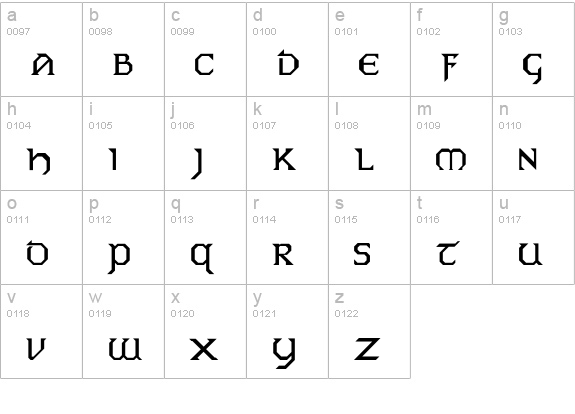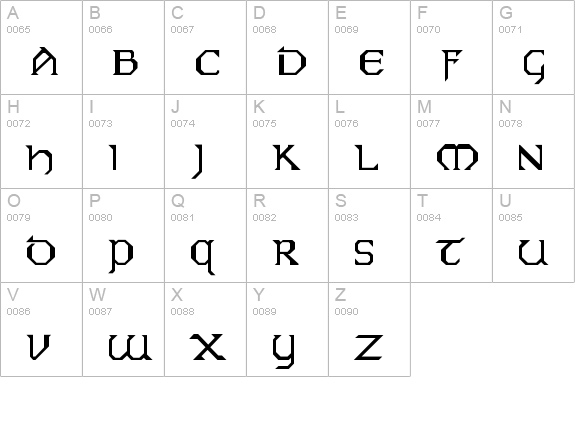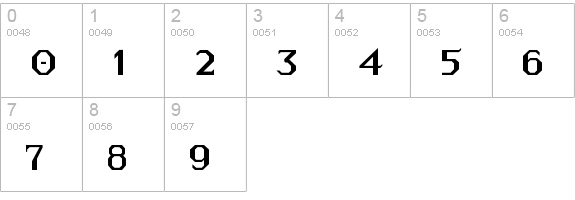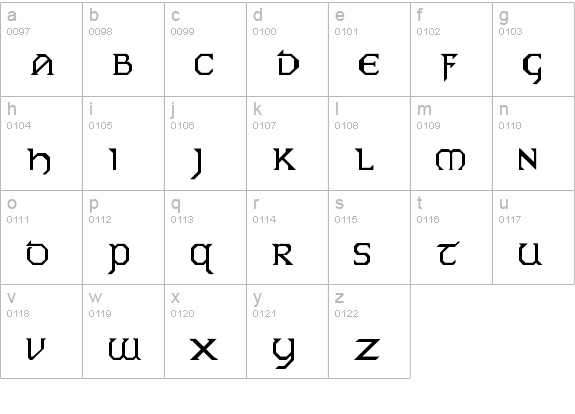
Eire Font Details
The Eire font is a stunning display typeface that exudes elegance and sophistication. Its sleek lines and modern design make it perfect for a wide range of creative projects, from branding to editorial design. With its unique character and versatility, Eire font is sure to make a statement wherever it is used. The best part? Eire font is completely free to download at FontsMarket.com. You can easily access this beautiful typeface and enhance your designs with its impactful presence. Don't miss out on this amazing opportunity to elevate your projects with the timeless beauty of Eire font. Download it today and let your creativity shine!